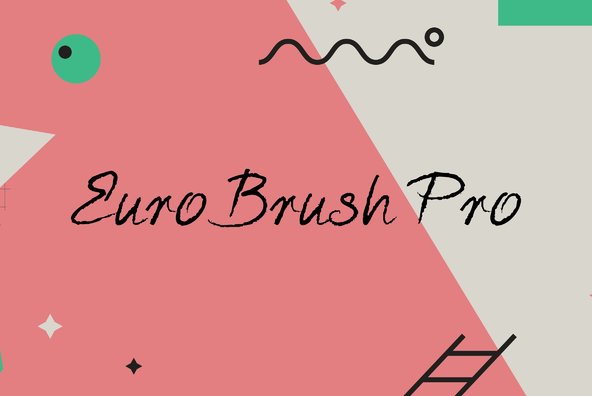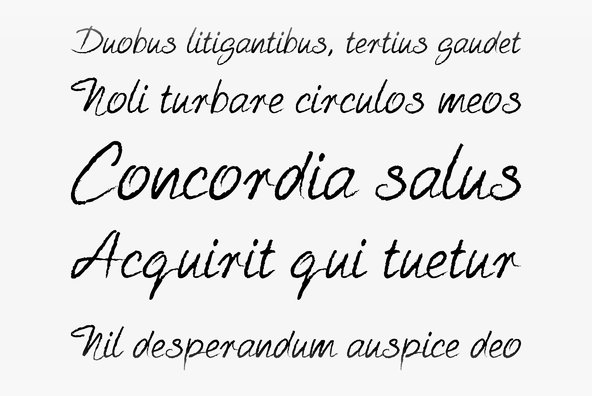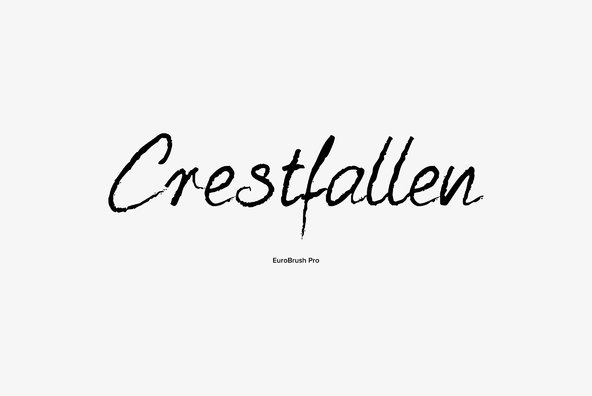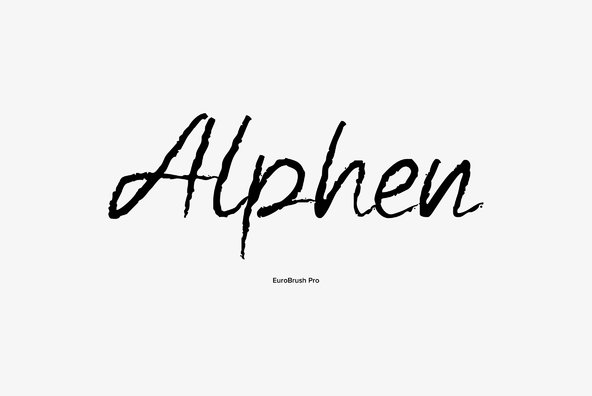
EuroBrush Pro
Eurobrush Pro is a new handwriting script designed by German type designer Ralph M. Unger. He produced not only the standard character complement West, but added all of the Eastern European Latin glyphs and, on top of that, even the complete Cyrillic characters. Born and grown up in Thüringen, former East Germany, Unger has a fair knowledge of Polish and also Russian (Cyrillic).
Eurobrush Pro is a very beautiful, casual, informal and modern handwriting in 'brush-style' of a contemporary type designer. Even though a digitized handwriting, it keeps a very natural and pleasant look, at the same time being generous and well-readable. The individual characters combine quite easily and perfectly with no need for extra variants (although Unger included a number of ligatures).
Eurobrush Pro is well-suited for plenty of applications, e.g. personal correspondence, invitations, greeting cards, headlines etc.